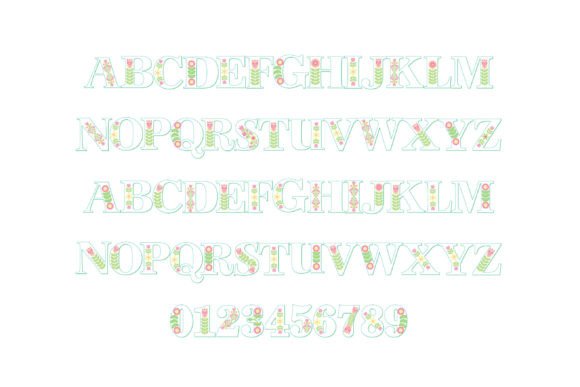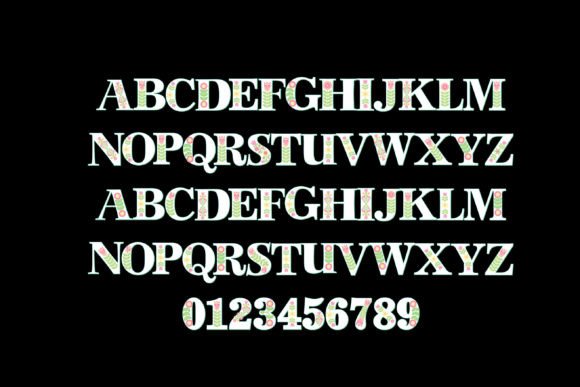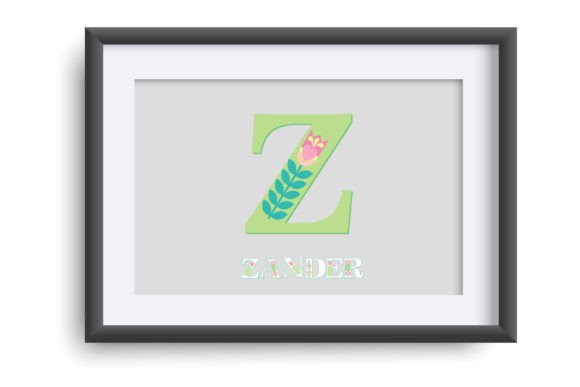
Introduction to Folksy Spring Font
Do you ever find yourself scrolling through your design archives, searching for the perfect font to match your creative vision? For me, it’s that moment when I stumble upon a font that instantly transports me to a sunny meadow, full of blooming flowers and fresh air. It’s like a breath of fresh air for my design projects. That’s exactly what I experienced when I discovered the enchanting Folksy Spring Font. This stunning font is a game-changer for designers, offering a unique blend of high-quality design and whimsical charm.
As a valuable design resource, the Folksy Spring Font is perfect for creative projects that require a touch of elegance and playfulness. With its beautiful serif letters adorned with delicate florals, this font is sure to elevate your designs and leave a lasting impression. And the best part? It’s available as a free download, making it an accessible addition to any designer’s toolkit.
Key Features of Folksy Spring Font
- Unique, hand-drawn design with a high level of detail, making it a valuable design resource for creative projects.
- Features a transparent background, providing designers with maximum flexibility when incorporating the font into their designs.
- High-quality resolution, with a minimum of 300 DPI, ensuring crisp and clear typography in printed materials.
- Perfect for creating a whimsical, vintage-inspired aesthetic in creative projects, from greeting cards to advertising materials.
Honest Review: Folksy Spring Font
I recently had the chance to work with the Folksy Spring Font and I must say it’s been a delightful addition to my design projects. This high-quality font is perfect for anyone looking to give their creative project a unique and charming touch. One of the things I love about this font is its versatility – it’s great for both digital and print designs.
- ✨ The font’s transparent background makes it easy to overlay on images and other design elements.
- ✨ The high-quality design ensures that the font looks crisp and clear on a variety of devices and screen sizes.
- ⚠️ The font is not available in as many languages as I would have liked.
- ⚠️ The font’s character set is not as extensive as some other fonts I’ve worked with.
Overall, I’m really impressed with the Folksy Spring Font and I would highly recommend it to anyone looking for a unique and high-quality design resource. It’s perfect for creative projects where you want to add a touch of whimsy and charm.
The Folksy Spring Font is perfect for a variety of creative projects, including wedding invitations, baby shower invitations, and social media graphics. Its high-quality design and transparent background make it a versatile design resource for any project.